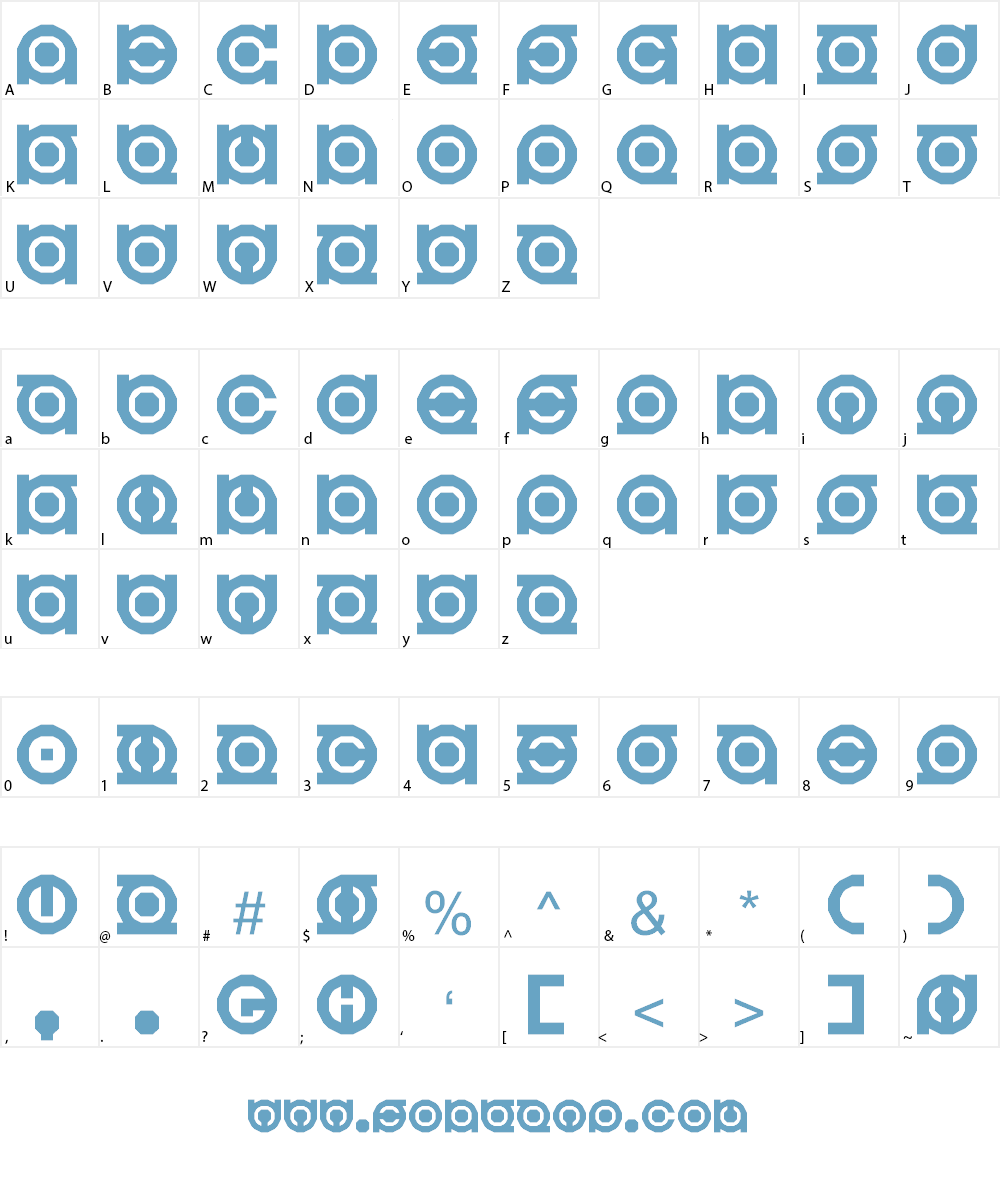
A strange, alien-like font based on circles. Comes in two styles and supports English, German, and Greek!
It is hard to read by design. The idea was to modify each circle as little as possible to get each glyph. It might be useful for ciphers/codes because of this.
Because this font was made for writing short passages, most symbols are missing.
It is hard to read by design. The idea was to modify each circle as little as possible to get each glyph. It might be useful for ciphers/codes because of this.
Because this font was made for writing short passages, most symbols are missing.